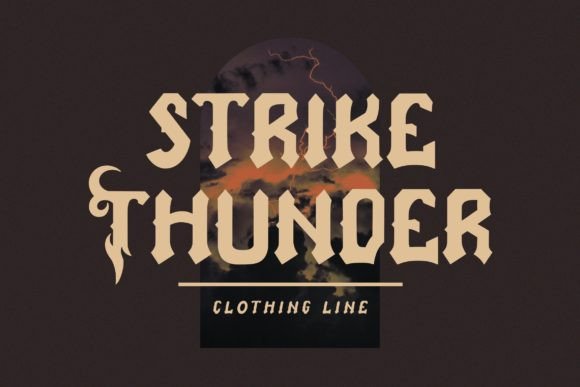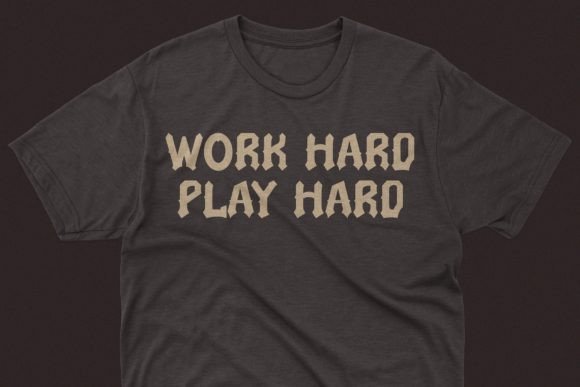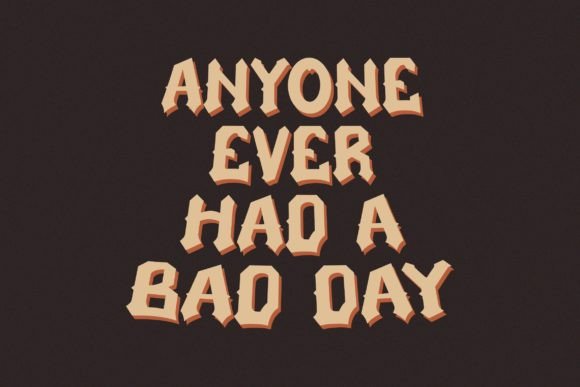
Introduction to Monarch Cultivation Font
As a designer, there’s nothing quite like the thrill of bringing a new project to life. You’ve got a concept, a vision, and a blank slate waiting to be filled with creativity. But sometimes, all it takes is the right font to elevate your design from good to great. For those moments, we’re excited to introduce you to the Monarch Cultivation Font – a stunning blackletter display font that’s perfect for making a statement.
With its unique shape and Gothic-inspired style, Monarch Cultivation Font is a valuable addition to any designer’s toolkit. Whether you’re working on a high-quality logo, poster, or book cover, this font is sure to bring a touch of sophistication and elegance to your design. And the best part? It’s available for free download, making it a must-have design resource for any creative project.
Key Features of Monarch Cultivation Font
- High-quality, unique font design with a transparent background, ideal for creative projects and design resources.
- Monarch Cultivation Font is a versatile design element, suitable for a wide range of creative projects, from branding and marketing materials to digital art and typography.
Honest Review: Monarch Cultivation Font
I recently had the chance to work with the Monarch Cultivation Font, and I’m excited to share my honest thoughts on this design resource. As a designer, I’m always on the lookout for high-quality fonts that can elevate my creative projects.
Here are the things that work well: ✨ The Monarch Cultivation Font has a beautiful, intricate design that’s perfect for projects that need a touch of elegance. ✨ It comes with a transparent background, making it easy to customize and layer with other design elements. ✨ The font is available for free download, which is a major plus for designers on a budget.
However, there are a few limitations: ⚠️ The font may not be suitable for all types of projects, particularly those that require a bold or sans-serif font. ⚠️ The font is only available in a limited range of weights and styles, which may limit its versatility.
Overall, I’m impressed with the Monarch Cultivation Font. It’s a great design resource for designers who want to add a touch of sophistication to their projects. With its high quality and transparent background, it’s a great choice for creative projects that require a bit of flair.
- Beautiful, intricate design
- Great for creative projects that require elegance
To get the most out of the Monarch Cultivation Font, use it in combination with other design elements, such as images and graphics. Experiment with different font sizes, colors, and styles to create a unique look.
The Monarch Cultivation Font is perfect for creative projects, such as:
- Logo creation
- Presentations
- Document design